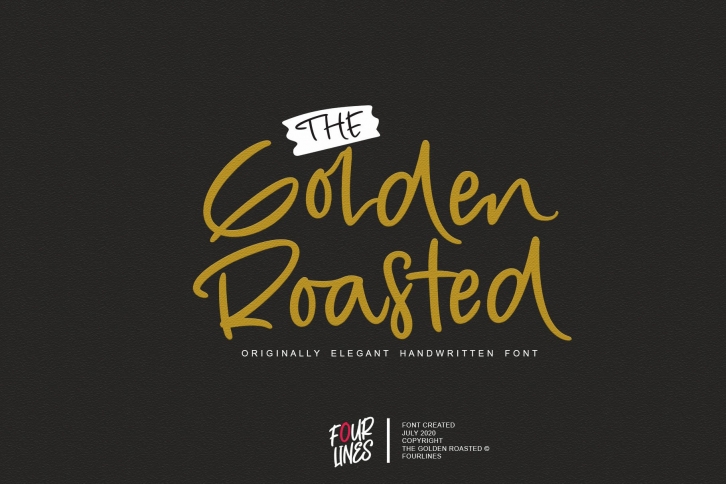
The Golden Roasted is a great font that was designed by Fourlines Design. Imagine the amount of combinations you can create using this font! The archive is 7.29 MB and it was released on November 21, 2020. The Golden Roasted looks beautiful on wedding invitations, greeting cards, logos, posters, labels, t-shirt designs, logos, business cards and is perfect for use in ink or watercolor works, fashion, magazines, packaging and food menus, children's books and more!